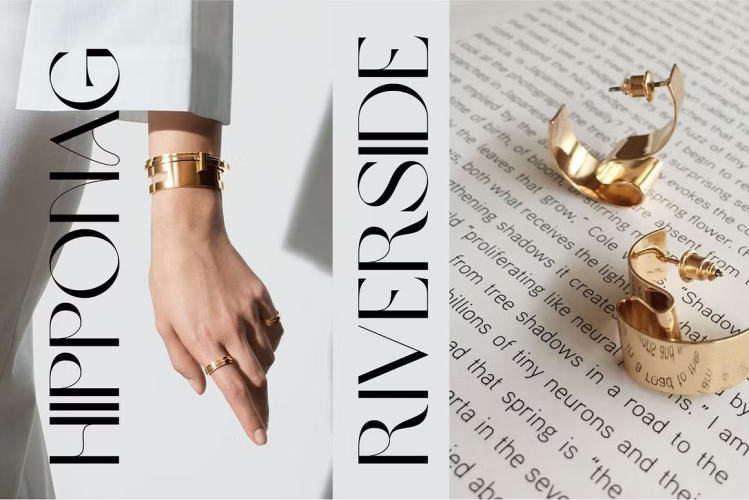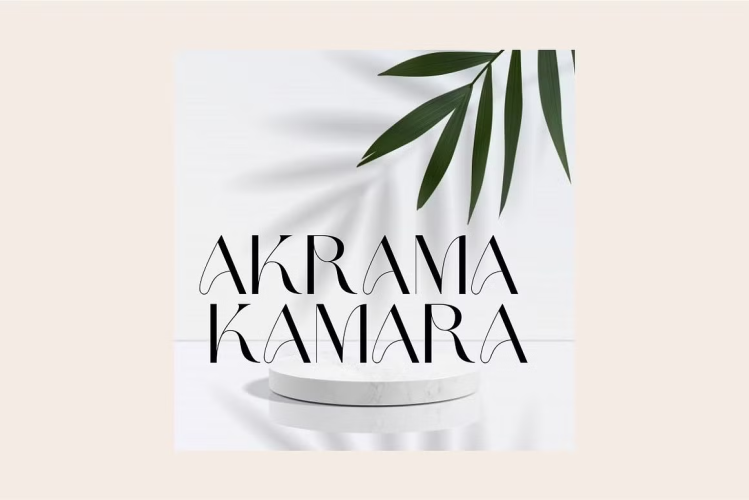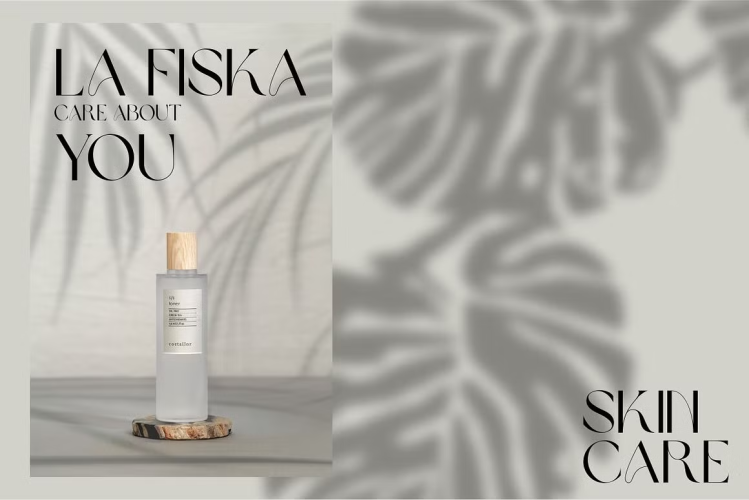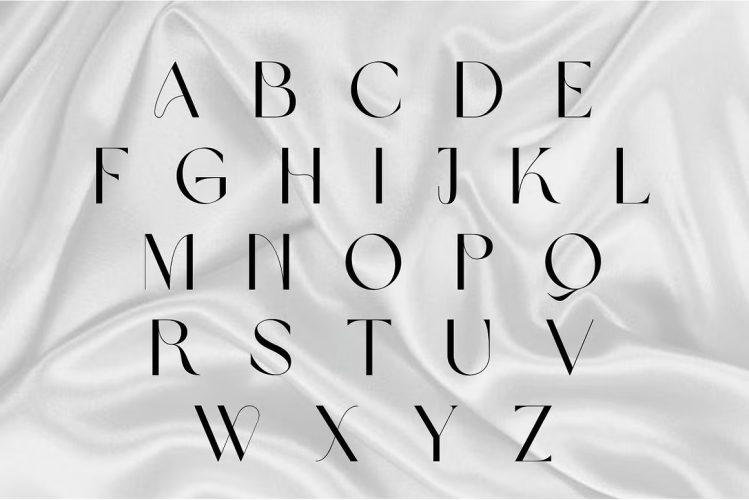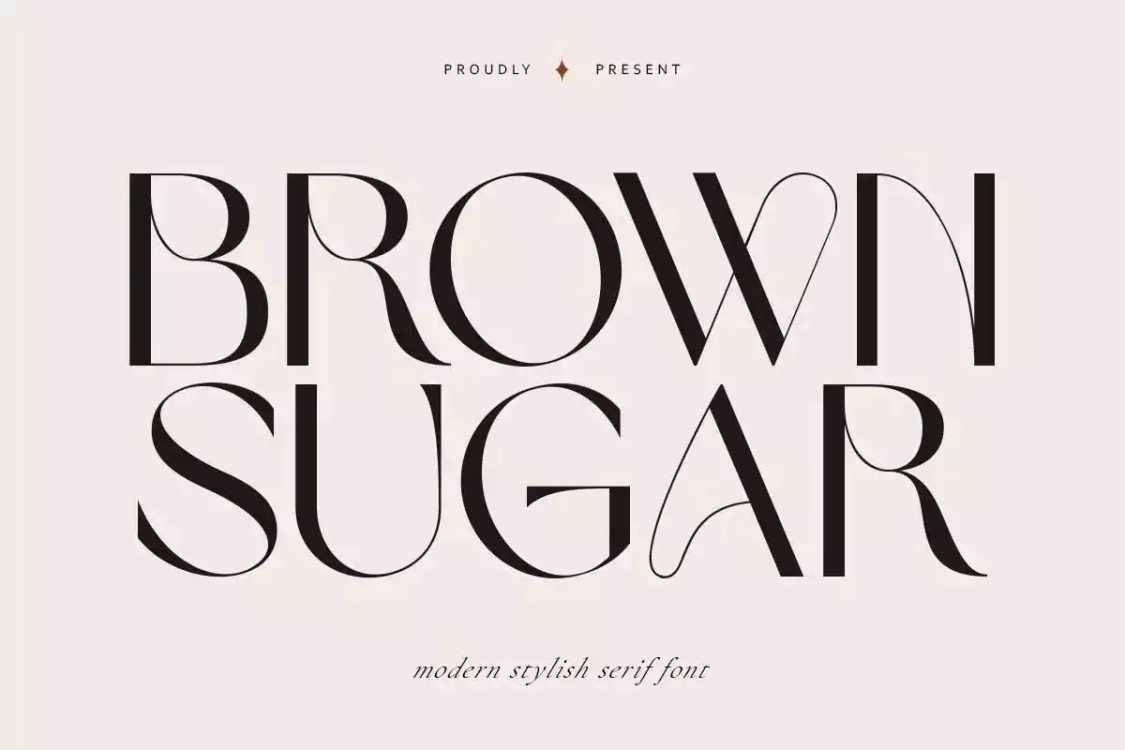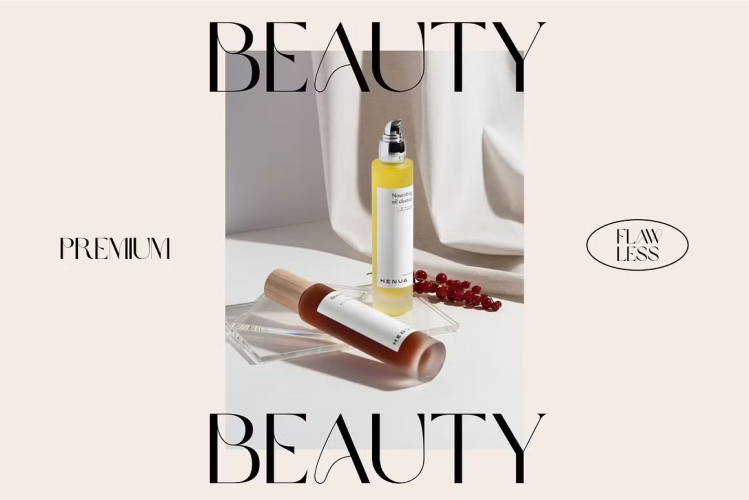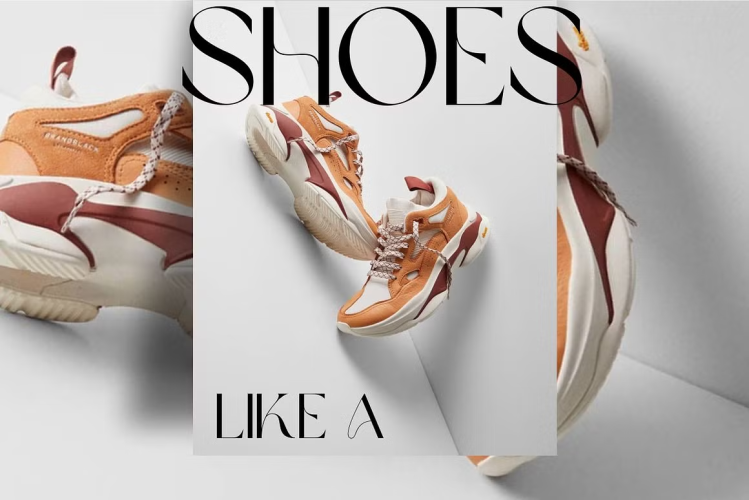
Brown Sugar Font
The Brown Sugar font is flexible with a string of uppercase letters, numbers and a long list of punctuation marks. This font is decorated with a slight serif touch with an up-to-date twist, reflecting a fashionable, modern character. Coming out of an extraordinary workshop, this font is ready to match all creative tasks such as posters, web pages, brand designs, illustrations, badges, etc.
The font features particular kinds of typefaces with both classic serifs and modern designs. These features give a contemporary aesthetic to any project it’s added to. Your creative projects can be visually appealing and compelling regardless of whether you create eye-buffering posters, well-outlined web designs, or brand identity solely with this font design.
Combining simple yet easily readable lines and balanced proportions results in a design suitable for digital and print applications, ensuring it is legible and appealing across all media types. Brown Sugar is a versatile collection that can achieve a timeless, classic look and a more modern and edgy feel. Incorporating this collection into your designs will elevate them to a professional level, giving them a polished look and a refined touch.
Embrace the features of Brown sugar, cool and hot colours, fashionable sketches, and ease of implementation to achieve more spectacular designs. It might be used as a small headline font or as the main focal point of your layout. This colour could be your magic wand to make your design more sophisticated and enchanting. Therefore, it is an excellent tool for designers who would love to leave a memorable effect on their viewers.
Brown Sugar Font is a Serif Fonts font that brings a professional and versatile look to your projects. The Brown Sugar font is flexible with a string of uppercase letters, numbers and a long list of punctuation marks.